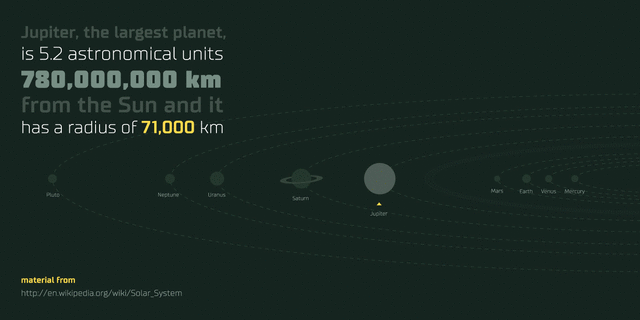
About TT Supermolot is next step of development of our old font Supermolot. We altered all in it from the beginning. Now it is a modern interpretation of an old font.
Infographics — big chapter in graphic design. Supermolot - this fontfamily for infographics and any structured information. You can use these fonts almost everywhere. The modern open grotesque forms and classic fontfamily formula: Thin, Light, Regular, Bold, Black and Italics. Supermolot is the assistant to work for any projects.
Scope: drawings, interfaces, infographics, statistics, graphic design, logotypes, structures, TV design, packaging, design of interiors and exhibitions, presentations and events, restaurants and cafes, printed materials, books, chemistry, physics, mathematics, educational literature, textbooks. Designed in TypeType studio in 2015.
Associations for font family TT SupermolotTypeface personality and character:
flat, accurate, logical, cold, automatic, technogenic, solid, static, crisp, stable, thin, easy, rectangular, urban, modern, machine, engineering, urbanistic, schematic, glass, fragile, futuristic, transparent, calm, wire, self-assured, steel, space, indifferent, simple, reliable, convincing, serious, strong, industrial, iron, manly, military, army, railway, fast, high-speed, sportive, tough, ambitious, sexy, workman, cinematic, racing, resolute, vigorous, daring, square, cutting, heavy, powerful, formidable, severe, authoritative, rude, loud, durable, important, monumental, close-fitting, brutal
constructor, scheme, architecture, engineer, automation, urban studies, science, city, gadget, electronics, technology, innovations, design, statistics, tool, robot, game, space, device, IT specialist, IT, android, hardware, sci-fi, coworking, astronomy, car, industry, war, army, weapons, factory, metallurgy, machine tool, packing, stock, port, box, ammunition, equipment, repairs, depot, helmet, uniform, railway carriage, aviation, aircraft, machine, Shooter, action, transport, airsoft, footwear, railway, x-ray, computer game, cinema, sport, mechanical engineering, security, protection, fuel, police, construction, building, brick, bus, Superhero, power station, energy industry, fitness equipment, football, blockbuster, thriller, workman, cybersport, selfie, race, rally, formula 1, cars, wheelbarrow, speed, Delivery, logistics, tank, truck, excavator, SUV, trucker, motor, engine, rap music, concert, disco, aquadiskotheque, oil Typeface associated with age: